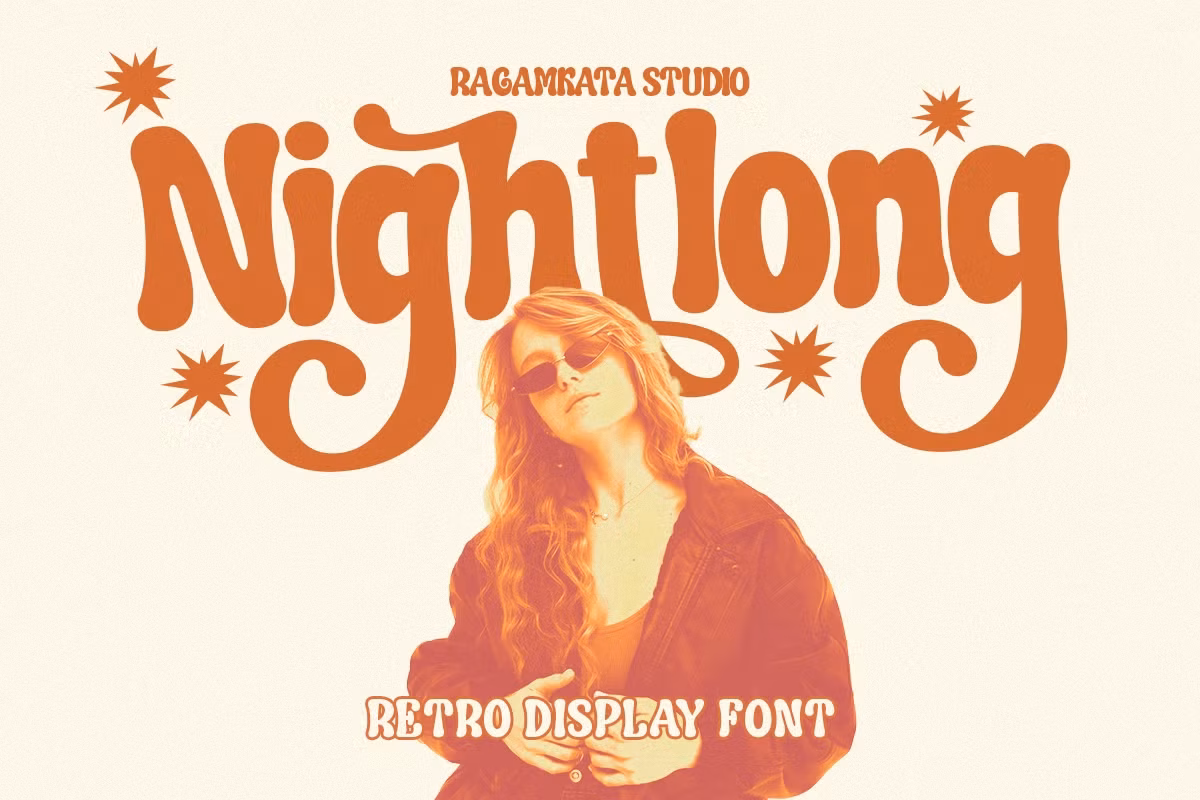
You must purchase this font for commercial use. However, you can download Nightlong - Display Retro Font Free Download for testing purposes. Nightlong is a bold and stylish retro display font that combines classic vintage vibes with modern design elements. Perfect for posters, logos, headlines, branding, and social media content, this font captures the essence of old-school typography while offering a fresh, contemporary twist.
With its strong geometric shapes, dramatic curves, and vintage-inspired letterforms, Nightlong - Display Retro Font brings a sense of nostalgia and flair to your projects. Whether you're working on a retro-themed event, a vintage-inspired brand, or an artistic design, this font adds character and boldness.